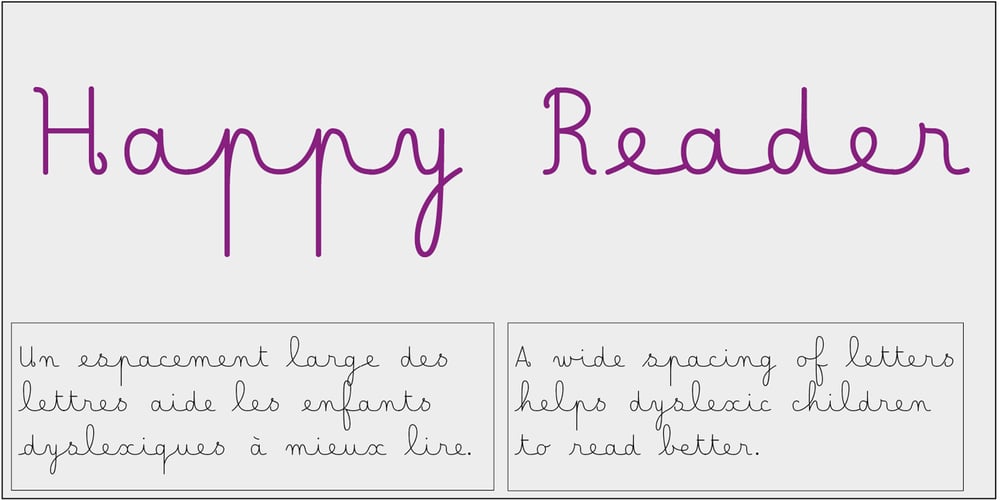
Happy Reader
Happy Reader font
Happy Reader Font Family was designed by Jean Boyault and published by JBFoundry. Happy Reader contains 6 styles and family package options. Happy Reader is a font family conceived to make reading easier for dyslexic children. Recent studies show that a wide spacing of the letters favors speed and understanding of the children with difficulties. Happy Reader proposes a handwritten writing with connected characters in three different spacings. NB: if letters are not connected, it is necessary to activate Contextual Alternates.